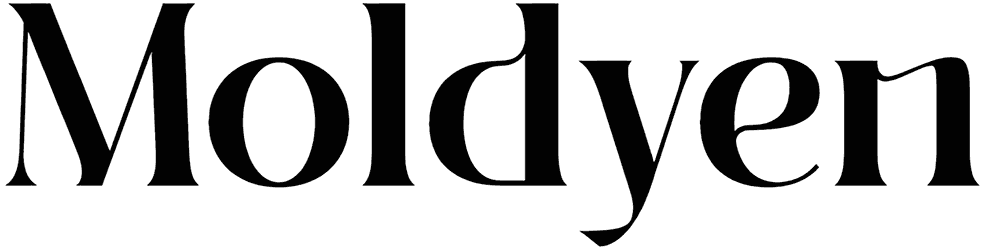
Moldyen Font
Moldyen is a timeless classic font that epitomizes elegance in typography. This retro font is a fun way to add a sense of nostalgia to your designs and can evoke the spirit of a bygone era.
This font’s clean and distinct appearance adds personality to the text and makes your message feel more expressive and dynamic. So whether you’re designing a vintage poster, creating an eye-catching logo, or building a memorable branding campaign, Moldyen font will help you achieve your goals.